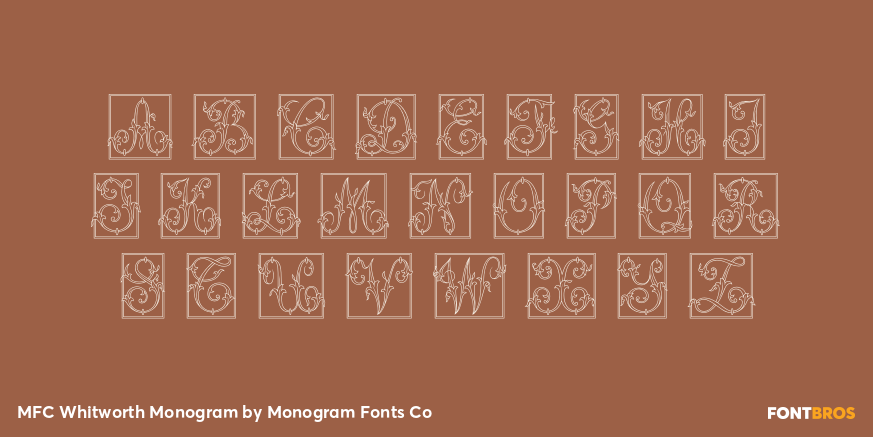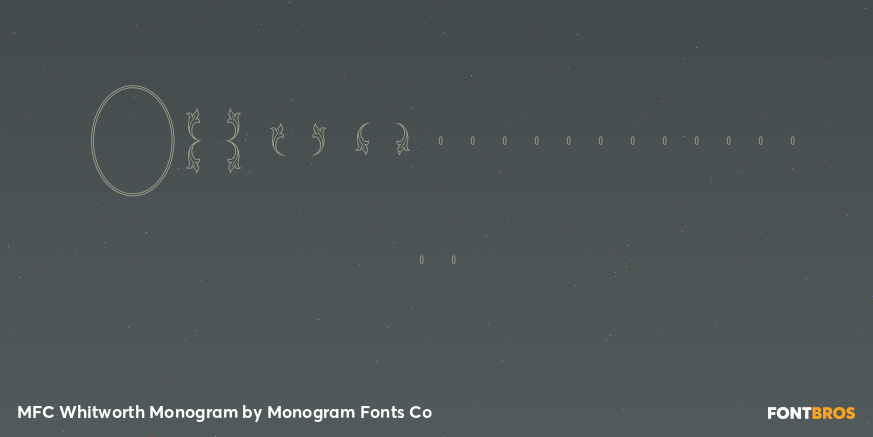
MFC Whitworth Monogram
Font Family by Monogram Fonts Co
Buy NowThe inspiration source for MFC Whitworth Monogram is an alphabet set from a vintage embroidery alphabets book, Alphabets Broderies No. 238 by N. Alexandre & Cie. What began as 26 referenced capital letters has been expanded to three sets of alphabets within a single typeface.
True to the original reference, the Capitals are the stylized cursive capital letters in all their gorgeousness. The lowercase encapsulates the capital letters intertwined within rectangular frame. By enabling Stylistic Alternates and typing any lowercase letter, you get each letter encapsulated and intertwined within an oval frame. A handful of decorative forms are placed in the 0-6 numeral slots.
Originally intended to adorn handkerchiefs and other linens, this digital revival opens it up to a whole new realm of possibilities. This is one of many monogram designs from the late 1800's to early 1900’s that is loaded with panache and intricate detailing.